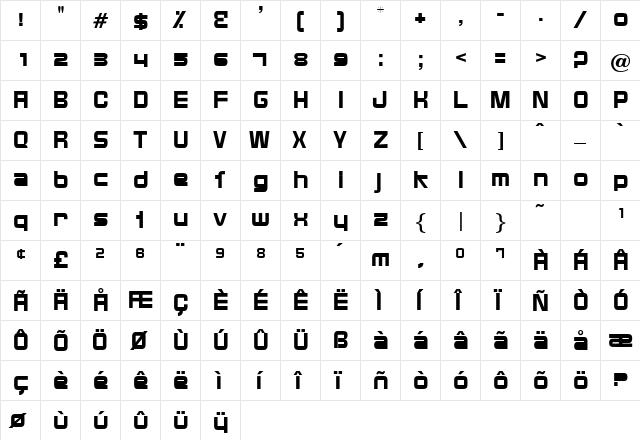
BenjaminSupplement Regular
Design Context for BenjaminSupplement Typeface
BenjaminSupplement takes a measured approach to typography — its balanced proportions and neutral character make it a reliable workhorse for both digital and print work.